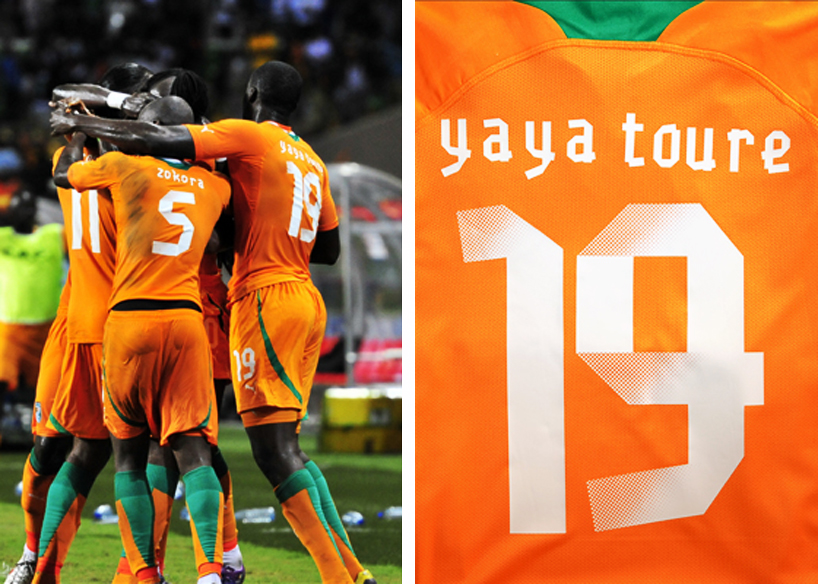
GBH x PUMA: gaffer font + italian football federation badge
a closer look at the 2012 italy kit by PUMA and the gaffer typeface designed by GBH.
balotelli set in the gaffer font by GBH (2012/13 italy home shirt by PUMA)
when italy take to the field later today in their UEFA EURO 2012 semi-final against germany, they’ll be sporting the latest PUMA home kit featuring names and numerals set in the ‘gaffer’ font designed by GBH.
left: giorgio chiellini wearing the 2012/13 italy home kit by PUMA right: gianluigi buffon wearing the 2012/13 italy goalkeeper kit by PUMA
2012/13 italy kits by PUMA the new home and away kits by PUMA have a vintage look but are packed with modern features such as 4-way stretch underarm panel mesh that enhances freedom of movement.
the blue home shirt has a 3D graphic embossed print with a flat knit rib collar in white that’s accented with the red and green of the italian flag.
the white away shirt has a ‘regular fit’ with a double v-neck collar, with a blue mesh insert across the chest to add contrast.
chiellini wearing the 2012/13 italy away kit by PUMA
gaffer font by GBH ‘make football anywhere’ mark by syrup
gaffer font by GBH the numerals and player names on the current shirts are all set in the gaffer font designed by GBH (with digitisation done by dalton maag).
the typeface takes its inspiration from the ‘make football anywhere’ campaign concept, which sees impromptu goal posts being hastily made from materials to hand, including tape. GBH were clear from the start that the spirit of raw, passionate enthusiasm expressed in the campaign needed to be communicated through the typeface. the result was that they set about designing a font made up entirely from gaffer tape…
simply entitled ‘gaffer’, the start point was to buy 150 rolls of tape and begin experimenting with folding, ripping and sticking the tape into shapes, to form a full roman alphabet and the all-important kit numerals. once satisfied with the look and proportion of each character, type impresarios dalton maag were brought in to help develop the full roman character set, and under the art direction of GBH, add all european accents before building a fully working, digitized font.
3D gaffer numerals on the front of the italy home and away shirts
the finished result is a typeface which stands out on the pitch for its legibility and brevity. the font allows the campaign creative to cross the white line onto the field of play, effortlessly uniting PUMA’s 2012 campaign push with the pro & amateur players via not only the kit design, but the vast collection of apparel & equipment currently rolling out.
jason greogory from GBH told us about the new 3D version of gaffer numerals as featured on the 2012/13 italy kits.
‘the 3D version of the numerals you see was designed specifically for italy. although the gaffer font is consistent across all PUMA sponsored teams, a distinction is drawn between the african teams who are classified as ‘speed’ teams and the european teams who are classified as ‘power’ teams.
a slightly different graphic treatment is given to the numerals for the speed teams and the power teams. the silhouette of the font remains the same, only the style within the shape changes for example the ivory coast numerals have a fade.
the 3D numerals are unique to italy, since they’ve won the world cup four times we wanted to do something special for them, our solution was to create a bespoke effect which references the classical, stone carved history of italy.’ – JG
3D gaffer numerals on the italy home shirt
3D gaffer numerals on the italy away shirt
3D gaffer numerals on the italy goalkeeper shirt
#1 gianluigi ‘gigi’ buffon
italian football federation (Federazione Italiana Giuoco Calcio) FIGC badge by GBH, 2005 (updated in 2006)
italian football federation badge by GBH the kits also feature another GBH design – the official italian football federation badge first unveiled in 2005.
‘PUMA commissioned GBH to design the new badge in 2005 because amazingly there was no copyright on the previous badge. as such, PUMA had no way of controlling the ever growing issues with counterfeit kits and merchandise. the design process had to go through the FIGC for approval but the project and approval was completed within a year (very rare) and on kits for the 2006 FIFA world cup.’ – jason gregory, GBH